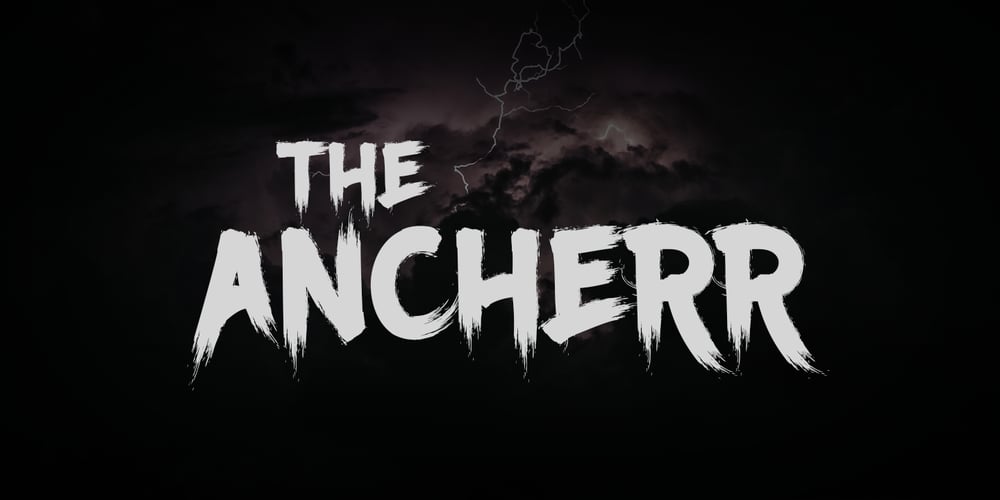
Ancherr
Ancherr font
Ancherr Font Family was designed by Faka Pratama Putra and published by Tama Putra. Ancherr contains 1 styles and family package options. Ancherr is a horror brush typeface. It is suitable for any design needs, branding, art quote, cover title, t-shirts, posters and more. The Ancherr typeface includes multi-lingual and currency support, numerals, and punctuations.